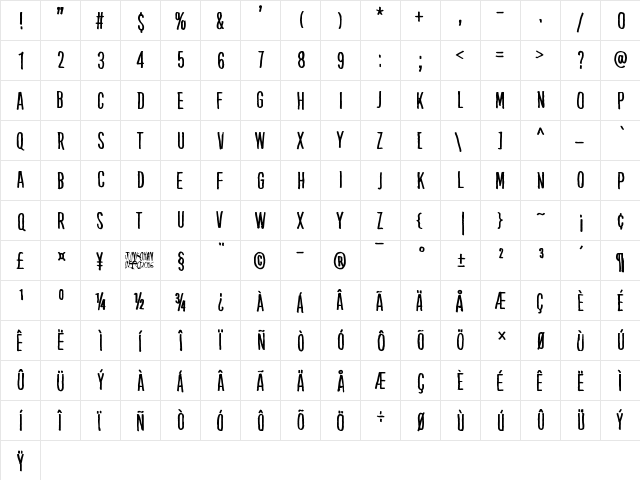
Kube Vertiko Regular
Design Context for Kube Vertiko Typeface
Kube Vertiko is a composed and adaptable typeface that performs quietly and consistently across a wide range of design contexts.
Pro Tip: Pair Kube Vertiko with a font of contrasting weight or personality to build a more expressive typographic hierarchy.